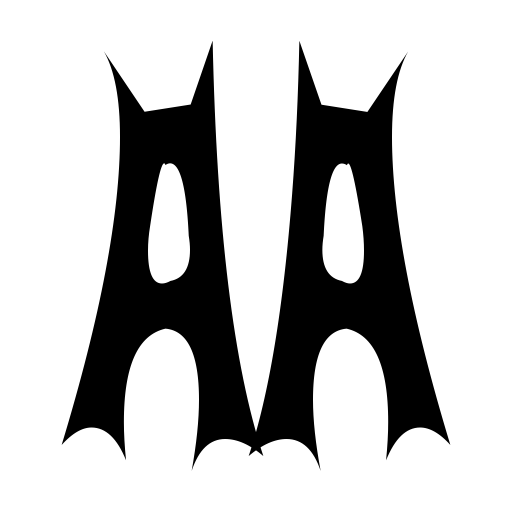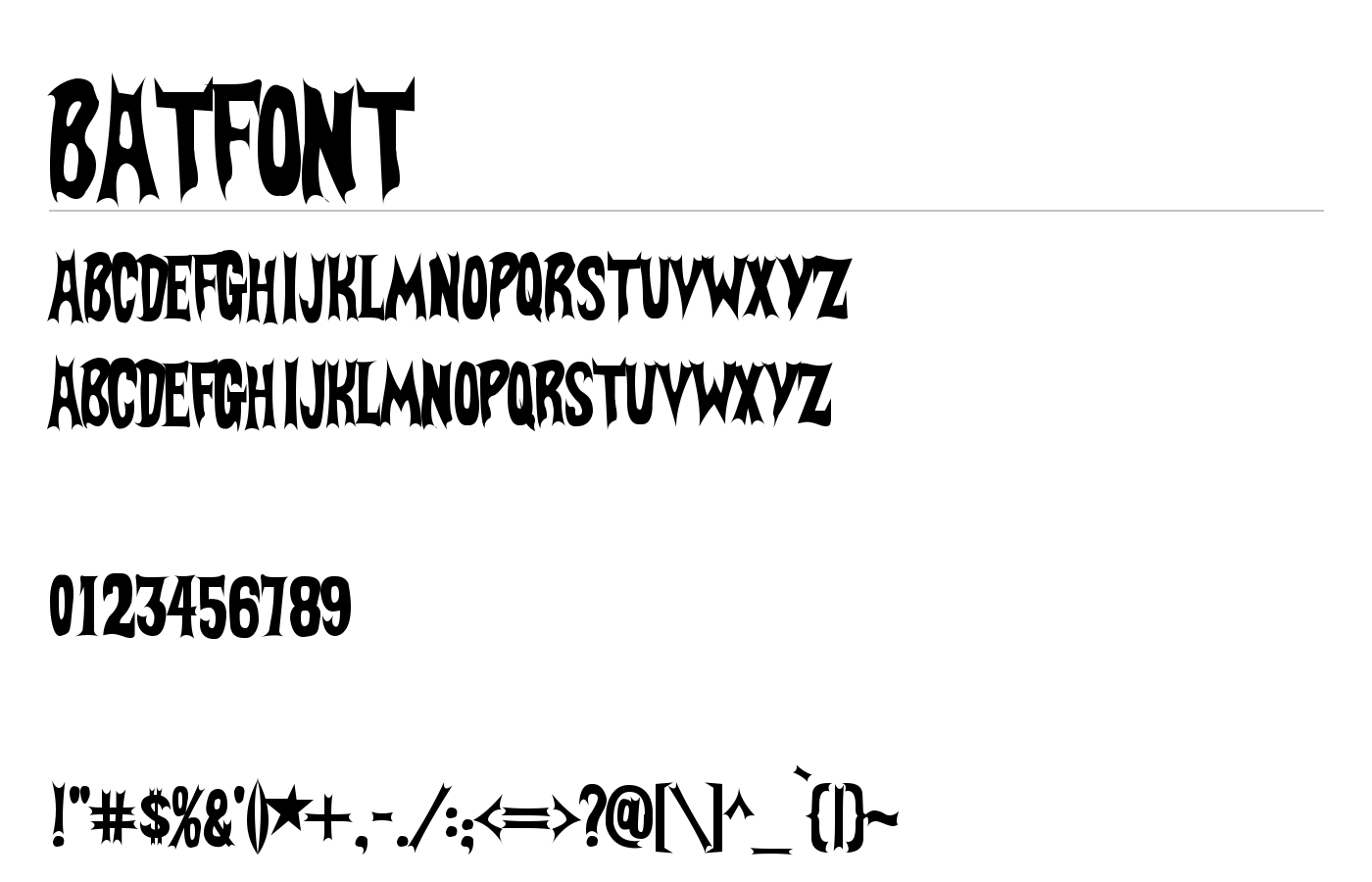
BatFont is a bold, decorative display font with a spooky, jagged style that evokes a Halloween or gothic vibe. Its condensed letterforms feature sharp, irregular strokes that give it a playful yet eerie personality, making it ideal for posters, party invitations, or branding that needs a dramatic, themed look. This font works best in large sizes where its unique shapes and strong presence can stand out and capture attention.
BatFont
About BatFont